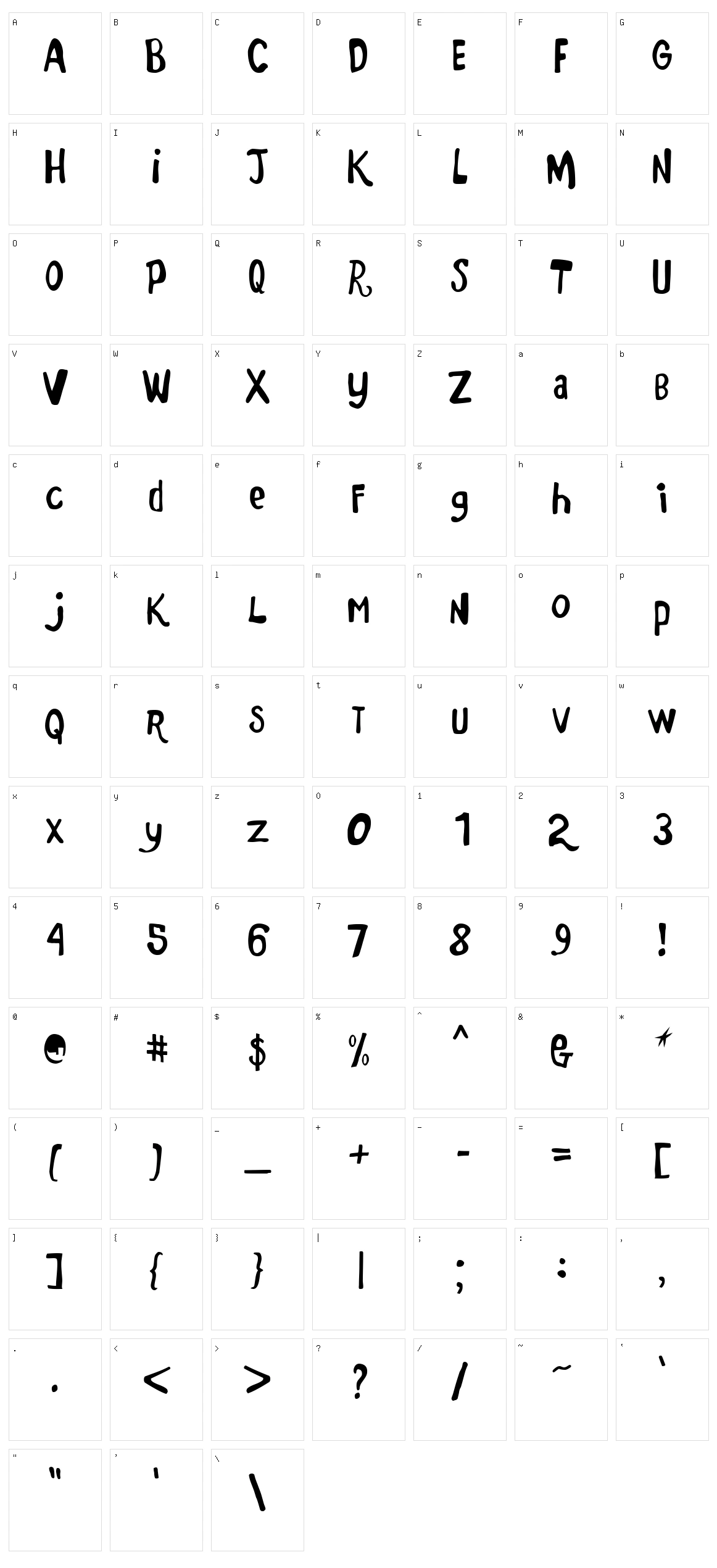
The free font Marker Monkey FW is carefully designed by Brain Eaters Font Co., showcasing a thoughtful balance of creativity and usability and falls under the Cartoon font style. When you download the ZIP file, it contains only 151.07 KB of font files, making it lightweight and quick to download. Please review the license details below to understand permitted usage and distribution rights. If license information is not available, we recommend using this font for personal projects only or contacting the author directly for commercial usage permissions.